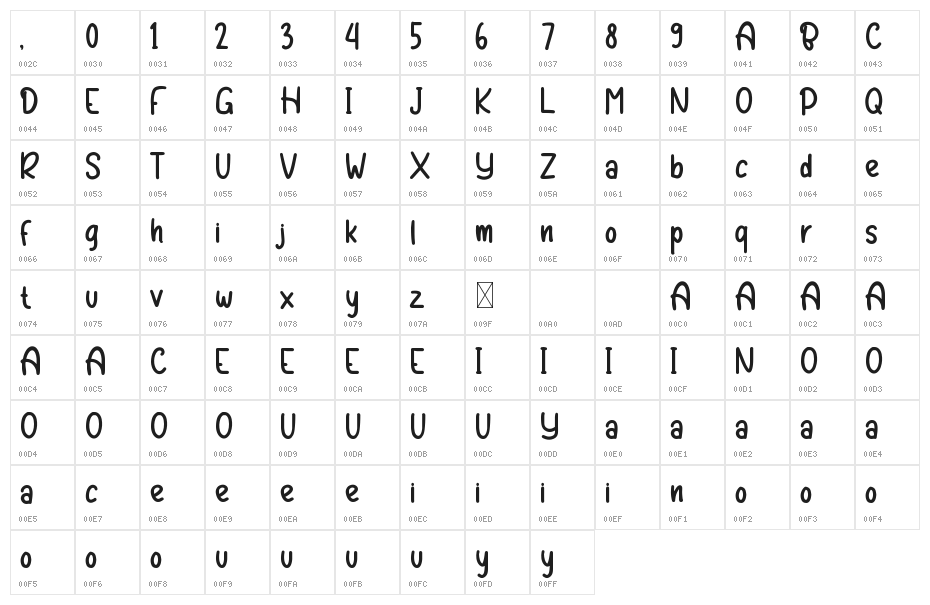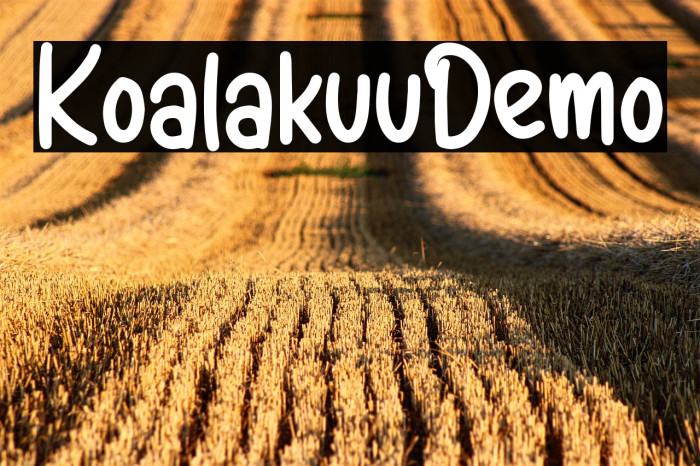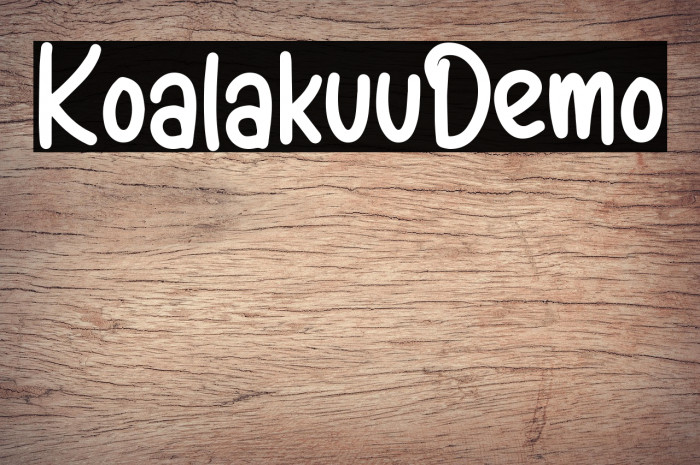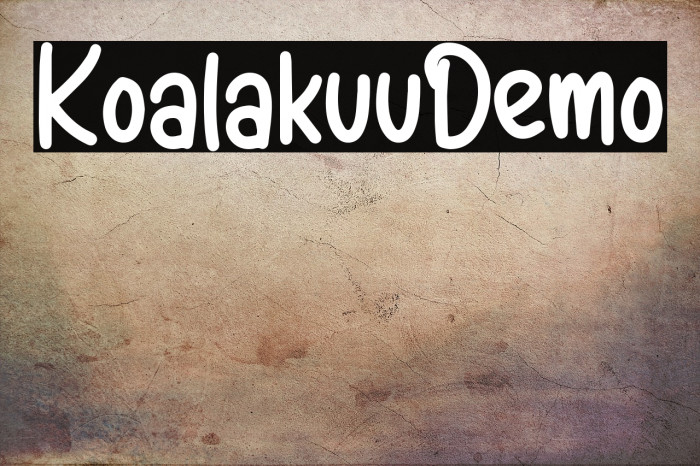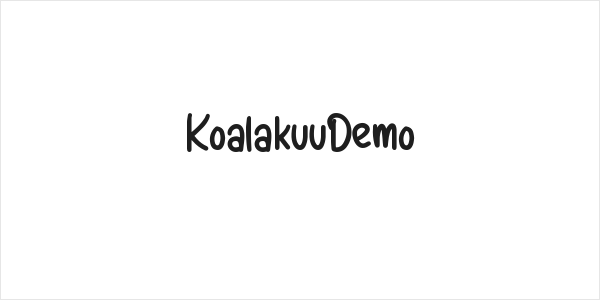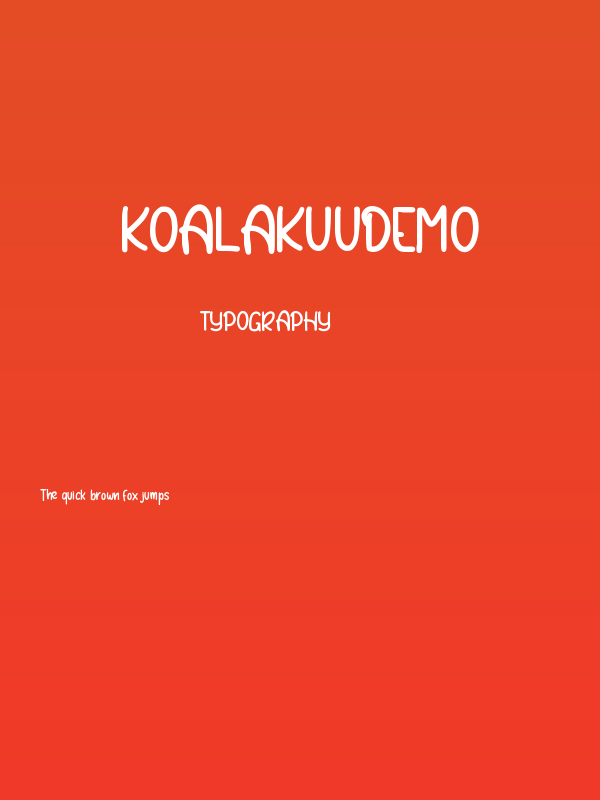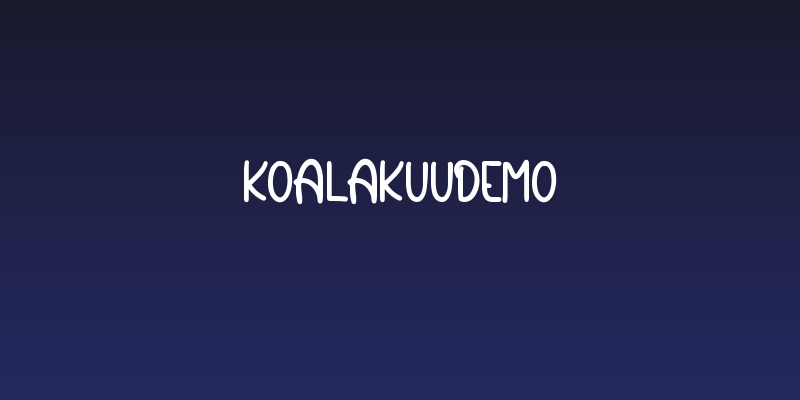
KoalakuuDemo Font
KoalakuuDemo Description
This playful and rounded font features a handwritten style with smooth curves and a friendly appearance. The letters are bold and slightly condensed, giving them a compact look while maintaining readability. The uppercase and lowercase characters are well-balanced, with a consistent stroke width that adds to the font's cohesive feel. The numerals and special characters are designed to match the overall style, ensuring a harmonious look across all text elements. This font is ideal for projects that require a casual and approachable aesthetic, such as children's books, playful branding, or informal invitations.